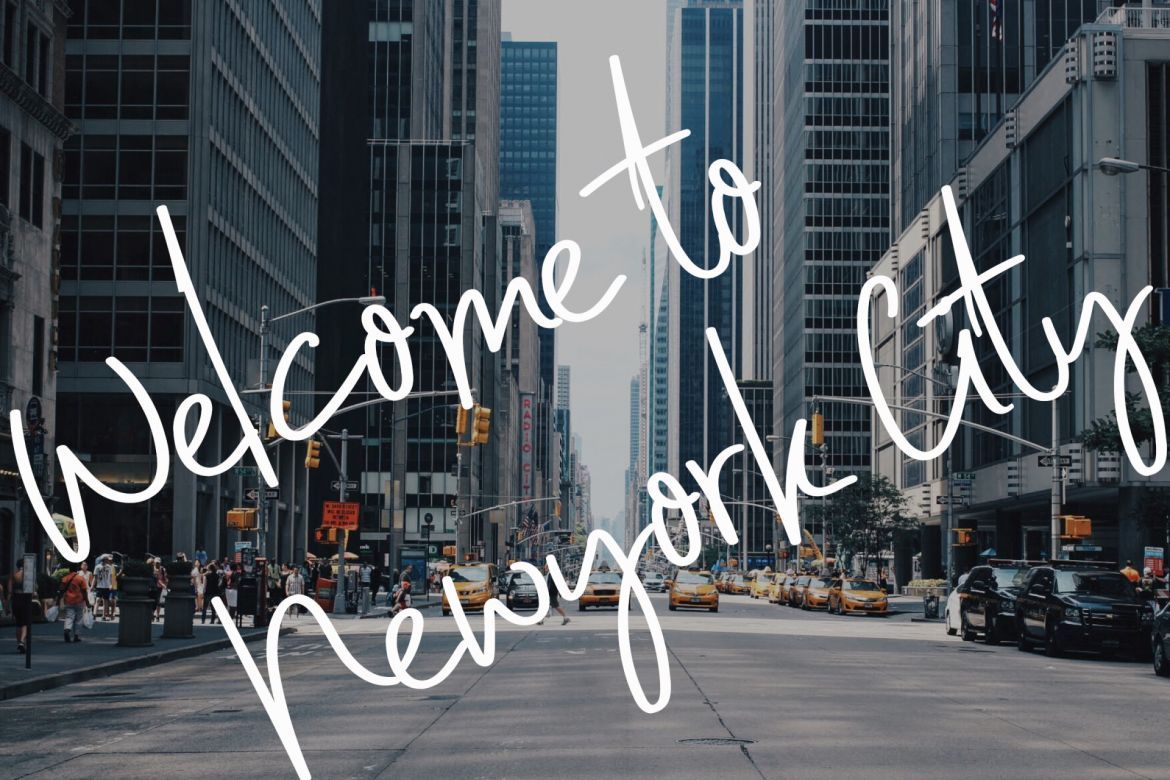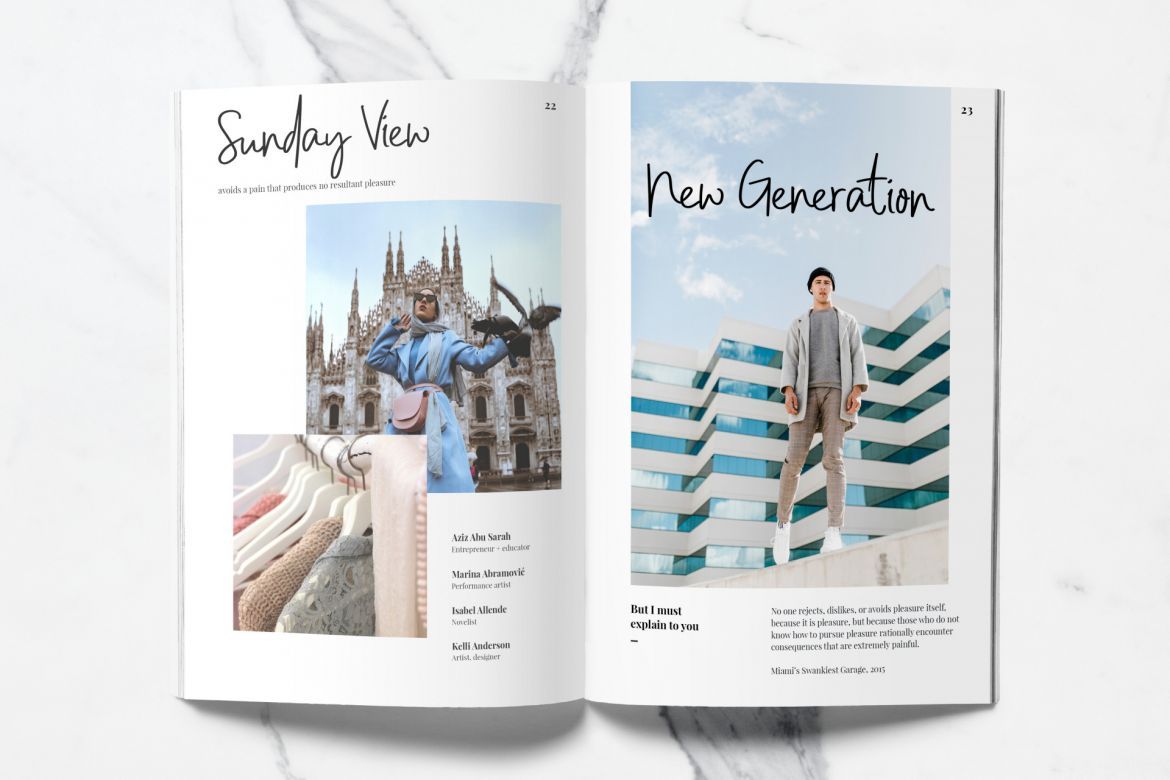
LaTahzan - Handwritten Font
LaTahzan is a elegant handwritten font, this font perfectly for Idcard, Magazine, quotes, and many more.
LaTahzan features :
• Uppercase
• Lowercase
• Numerals
• Punctuation
• Ligatures
• Stylistic Alternate